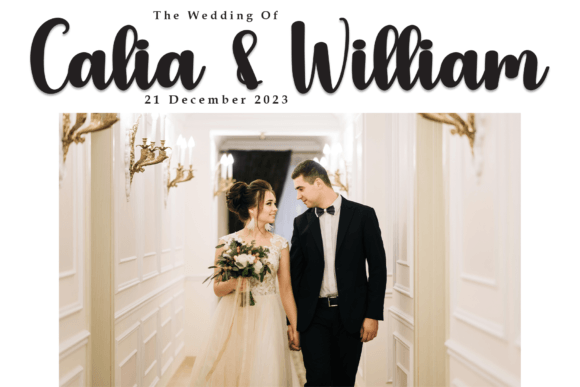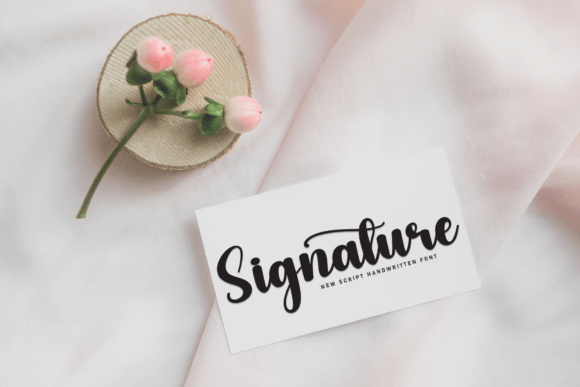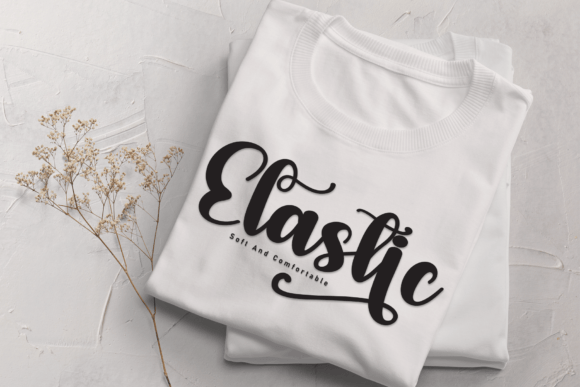
Introduction to Gently Font
Gently is a sweet and friendly handwritten display font.
Cute and fun, this font is ideal for writing wedding invitations, cards, or any other design that might need a fun touch .